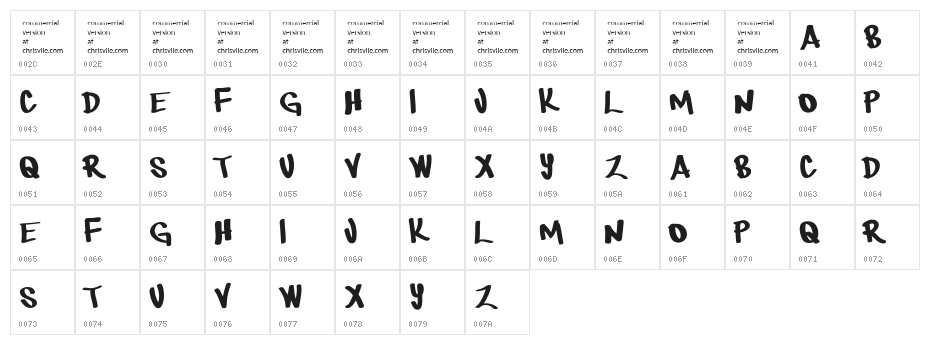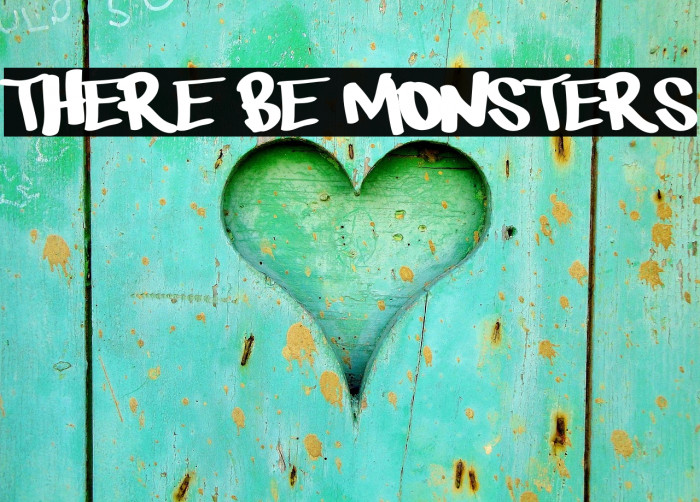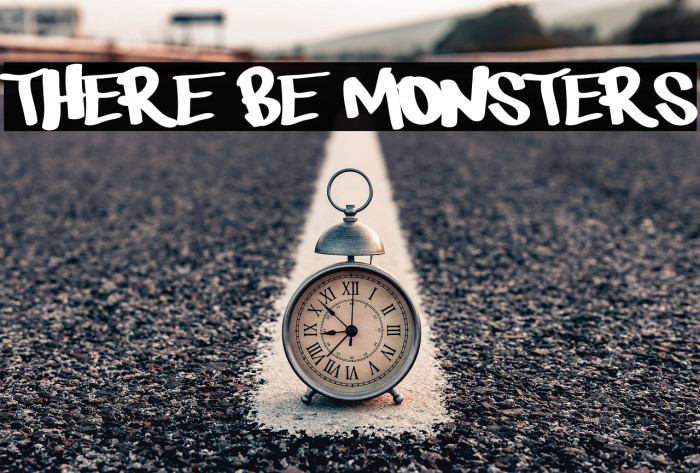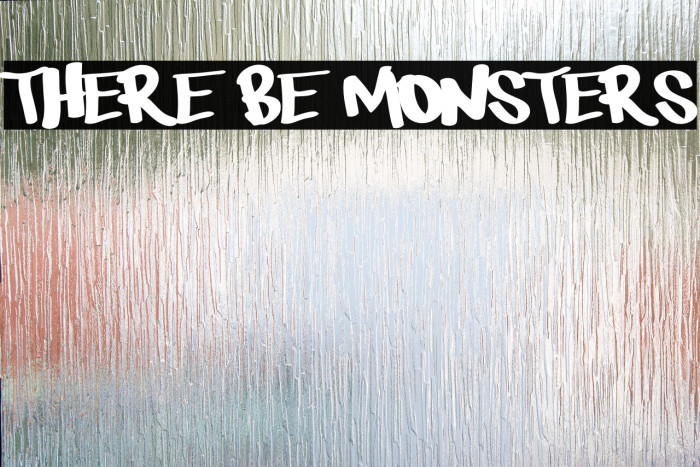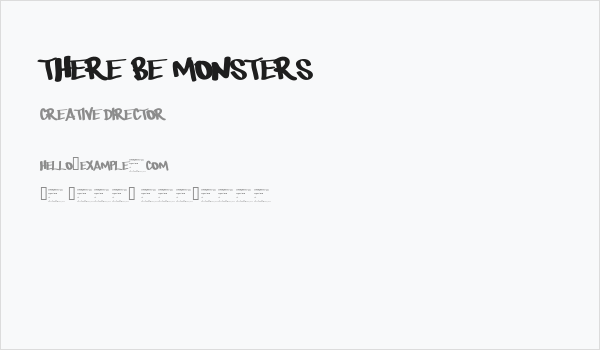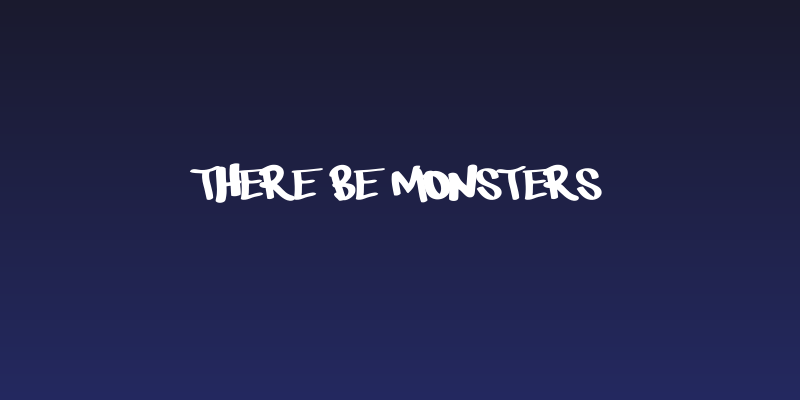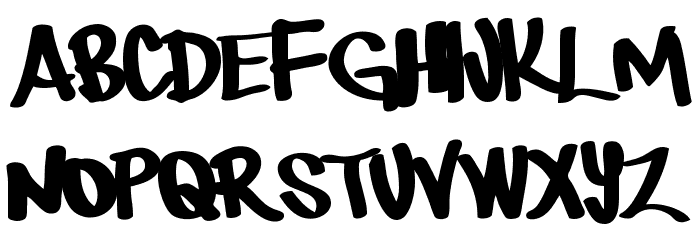
There be monsters Font
There be monsters Description
This font features a bold, playful style with a handwritten appearance. The letters are thick and rounded, giving a sense of energy and movement. The uppercase and lowercase characters maintain a consistent style, with exaggerated curves and a slightly irregular baseline that adds to the casual, informal feel. The font is highly legible despite its decorative nature, making it suitable for eye-catching designs. The strokes are consistent in thickness, providing a uniform look across all characters. This font is ideal for projects that require a fun and lively touch.
Proposed ProjectsIdeal for posters, children's books, playful branding, and social media graphics.